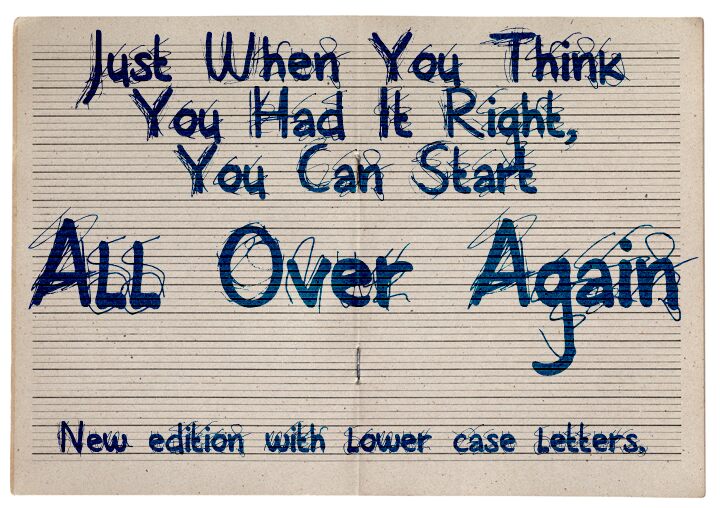
All Over Again All Caps by David Kerkhoff is a free trash-style script font with jagged, oversized capitals and a restless scrawled finish. Stray scratch lines keep every form visibly unsettled.
An underground music label or streetwear brand could use its raw marks across album packaging, posters, and merchandise, where the rough construction suggests a design caught in mid-revision. In editorial spreads and event graphics, the stray lines can mingle with photocopied portraits, torn paper, and marker textures so the type becomes part of the image rather than a polished caption.